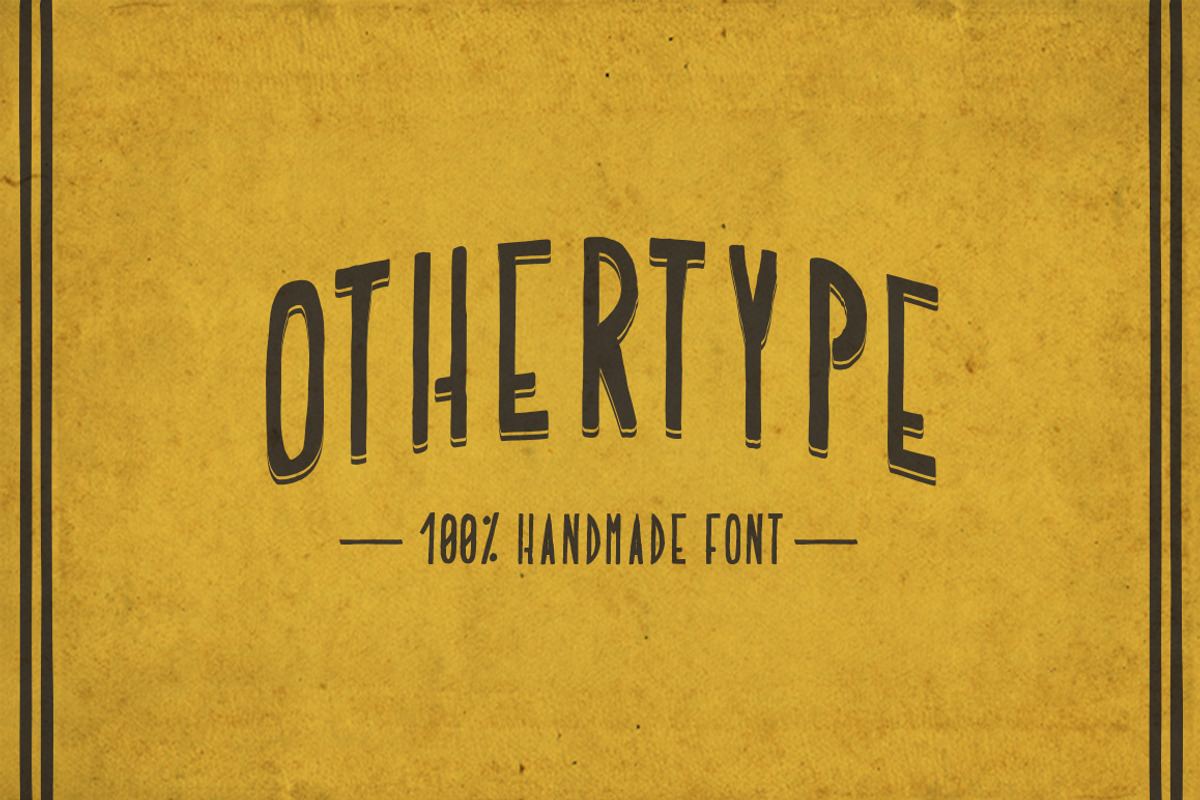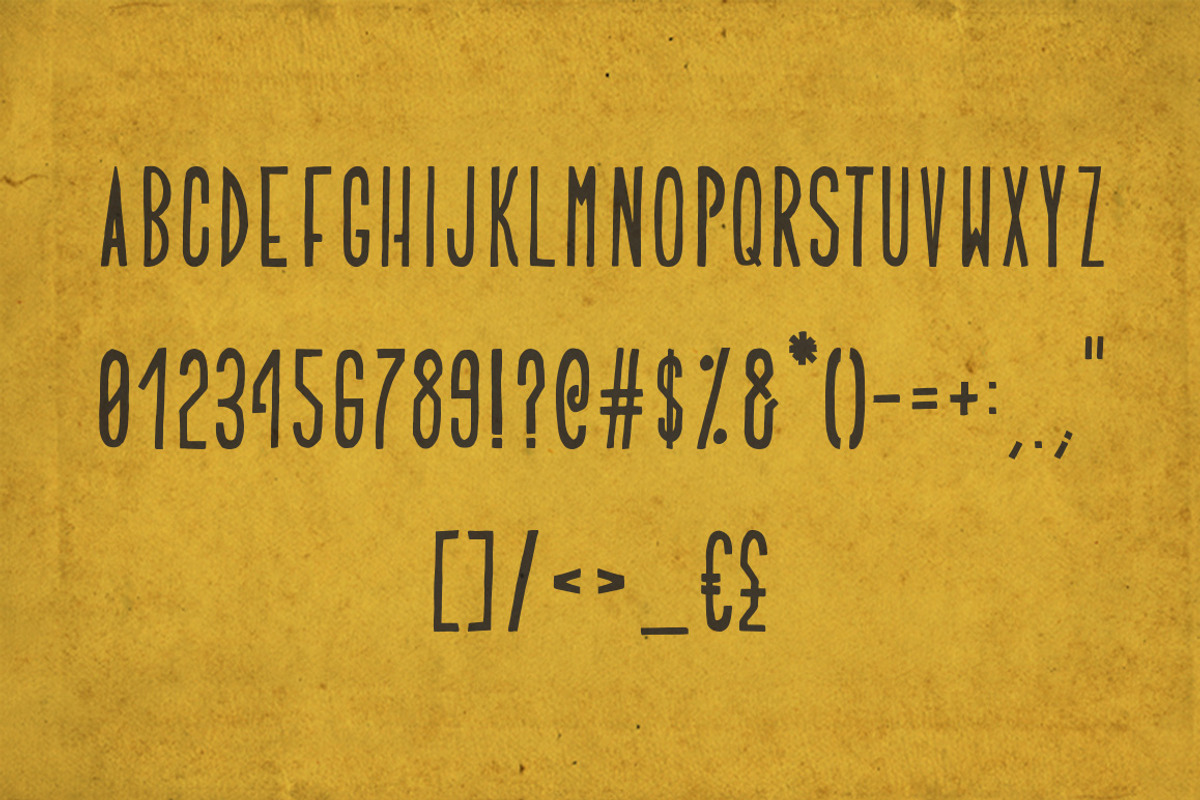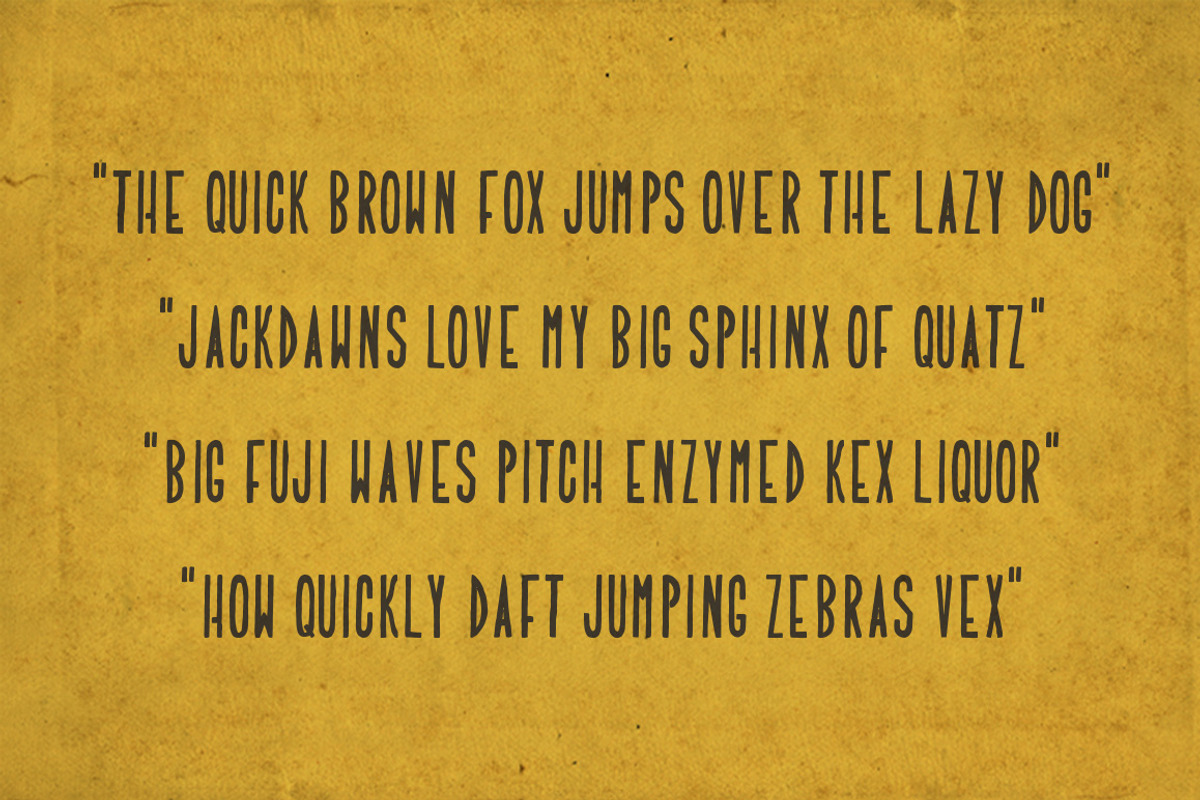
Othertype Typeface
Othertype is a hand drawn caps display font. The family contains two different styles. Use it to make a vintage handmade feel for your personal or commercial projects.